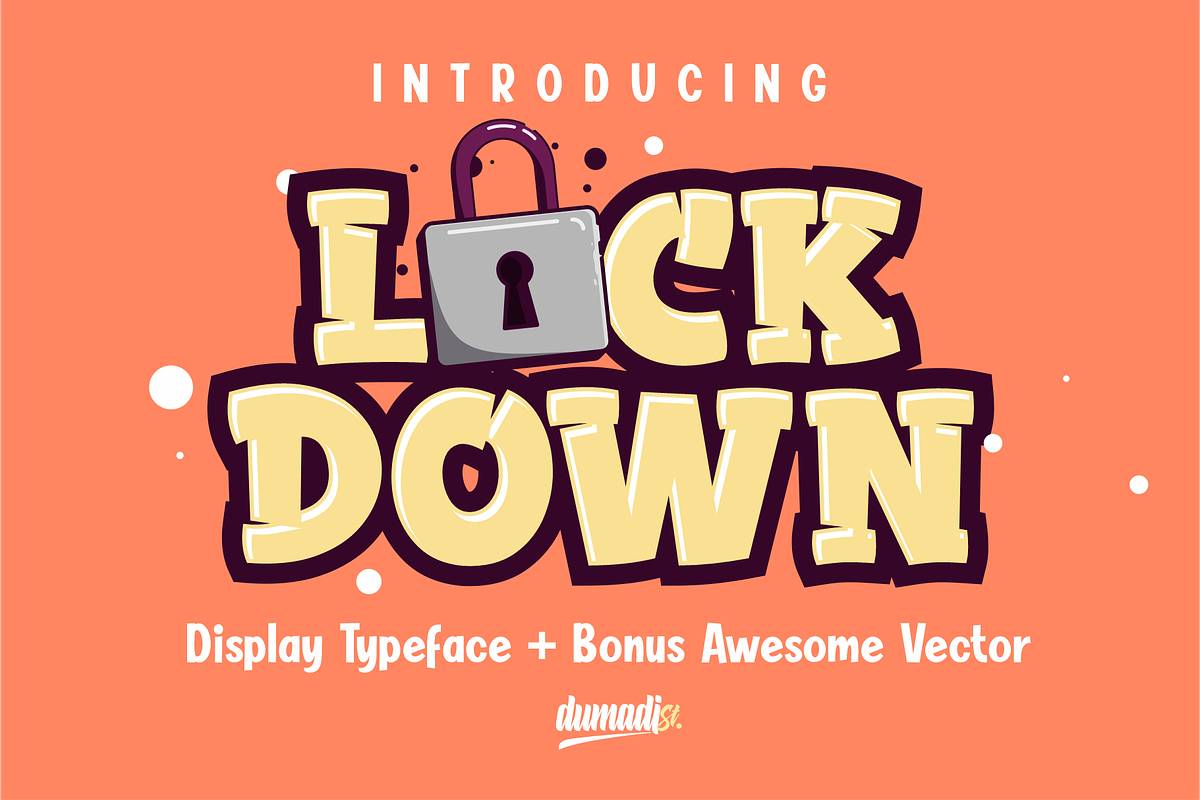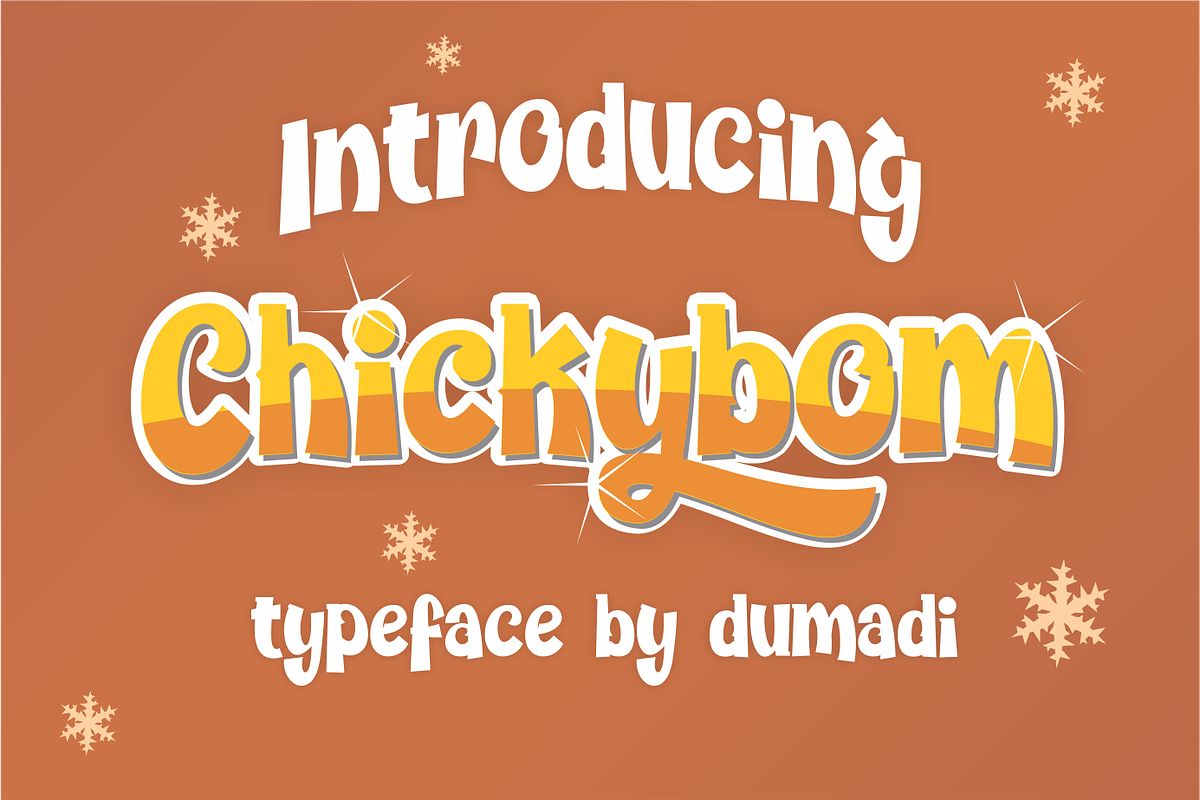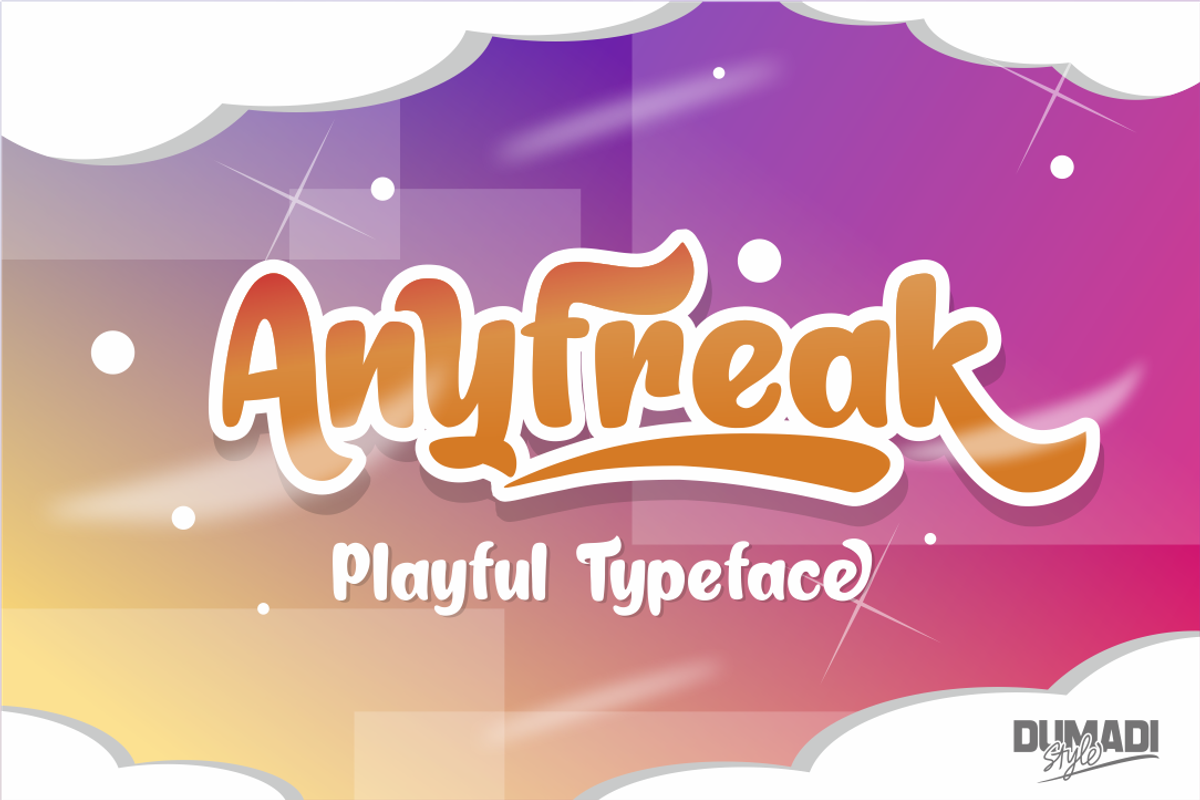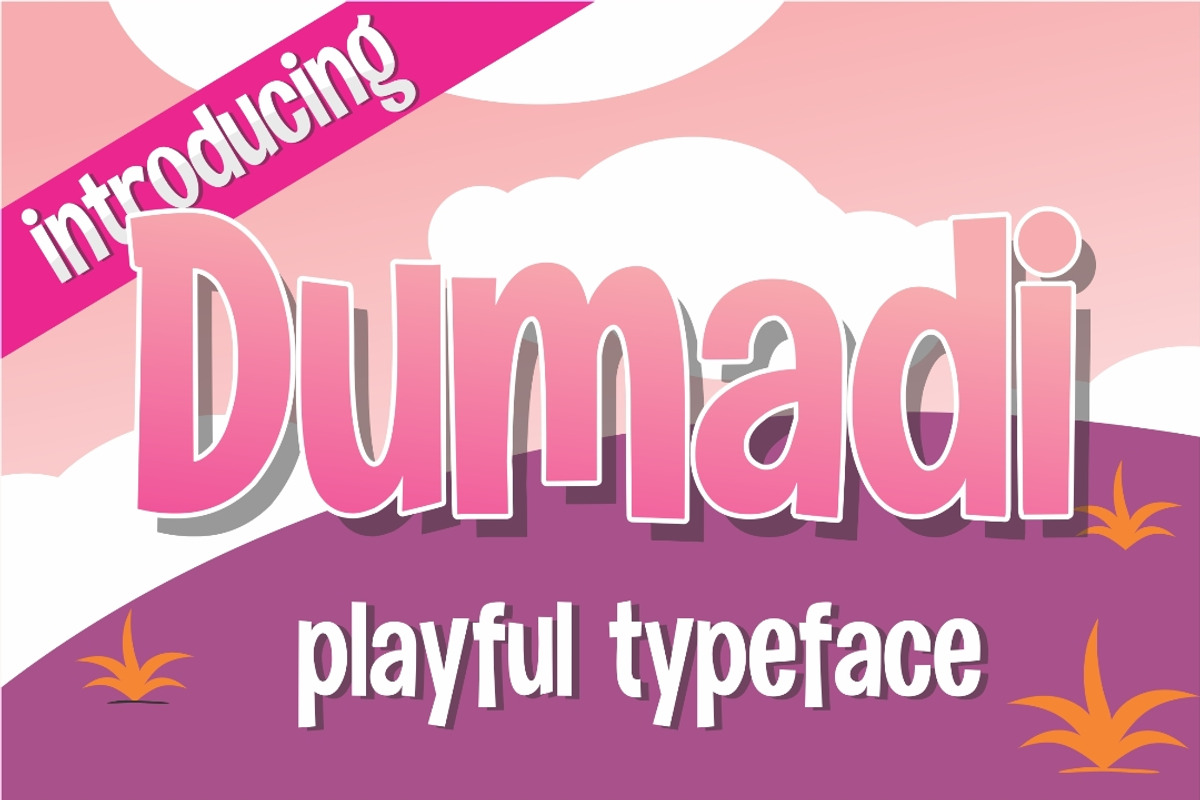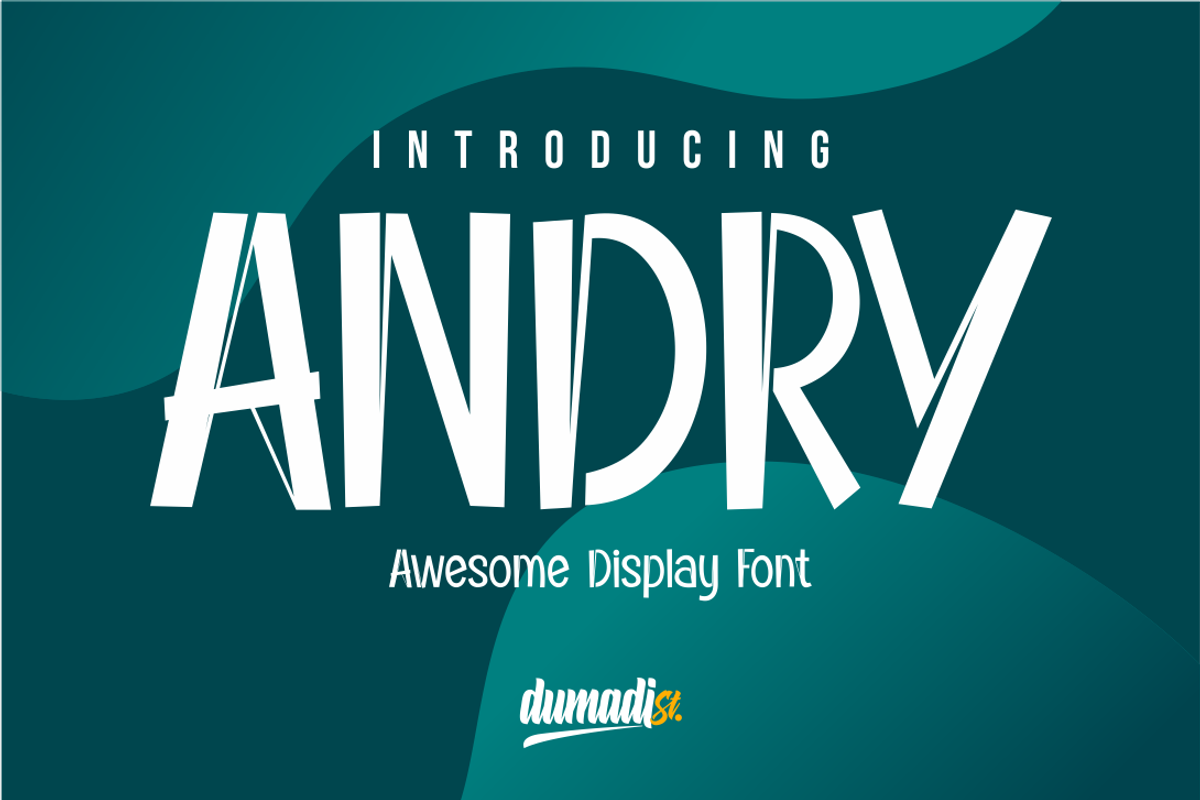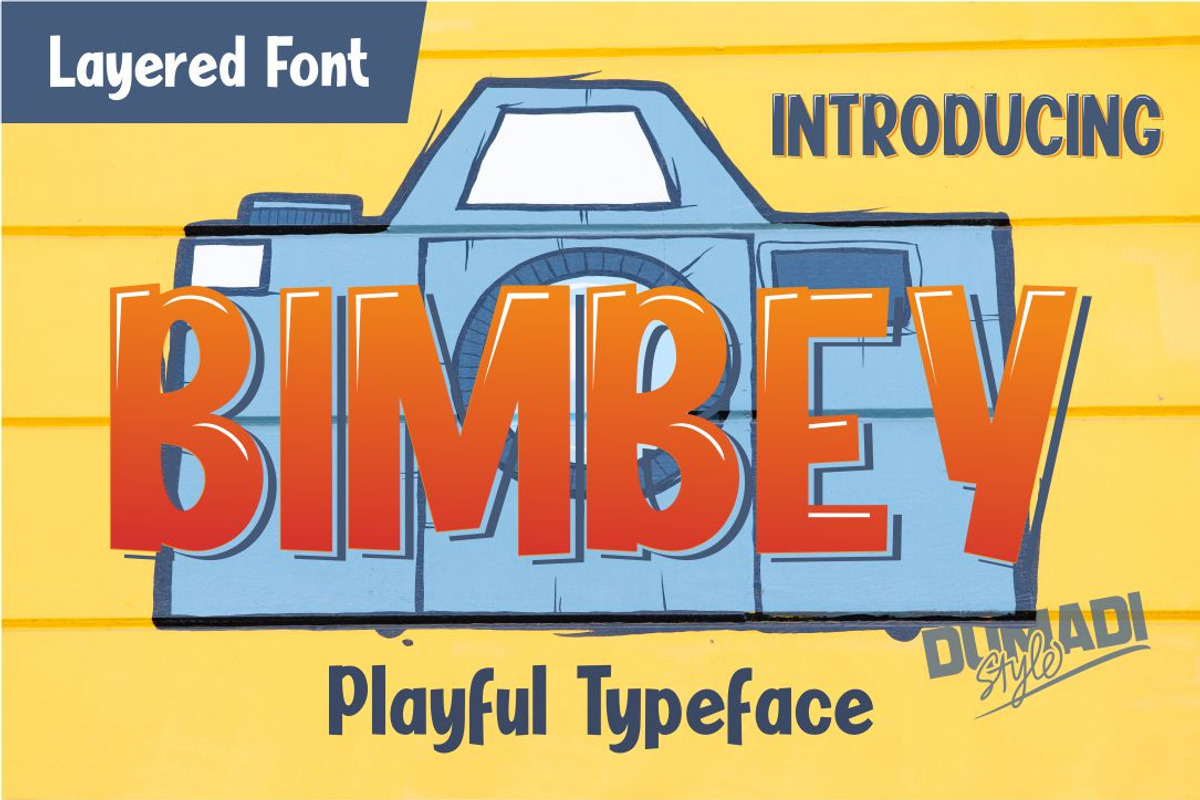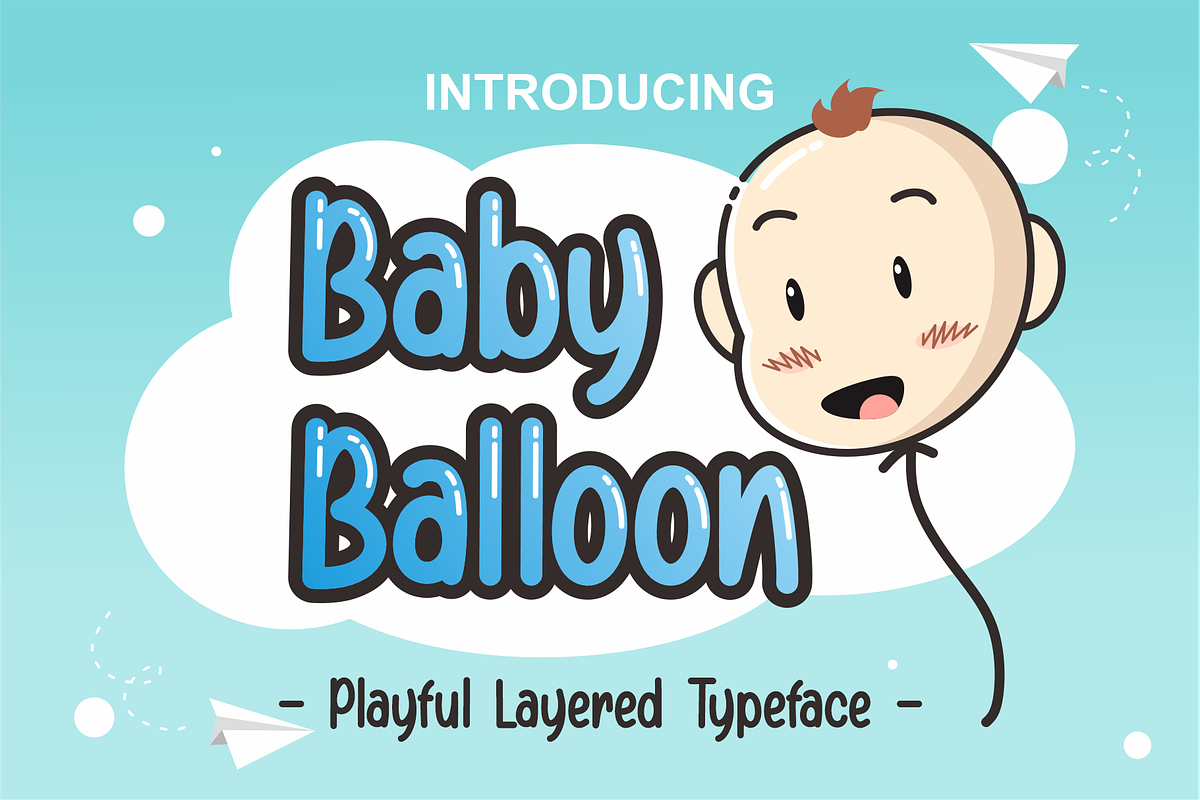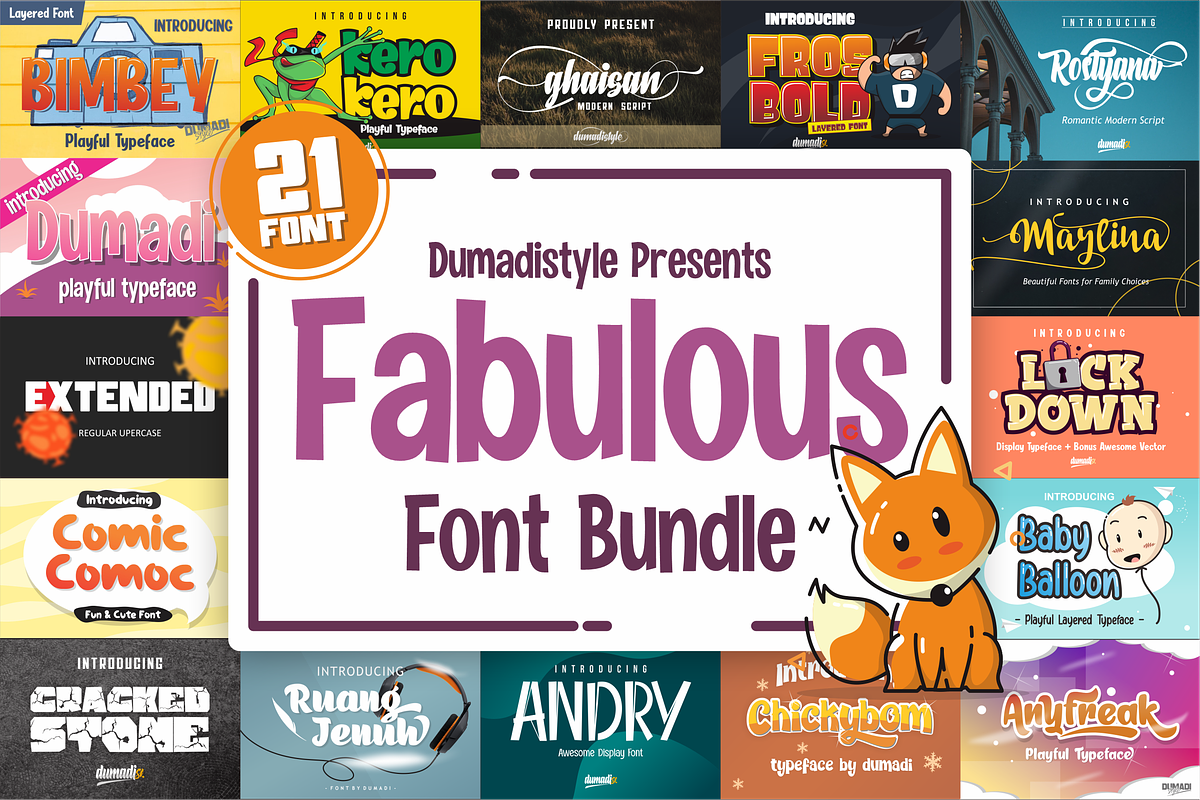
Fabulous font Bundle
Fabulous font Bundle! I offer fonts with incredible discounts The fonts I offer are 21 fonts.
Why Fabulous font Bundle is worth a look
Fabulous font Bundle by Dumadistyle fits naturally into Branding, posters, packaging, typography.